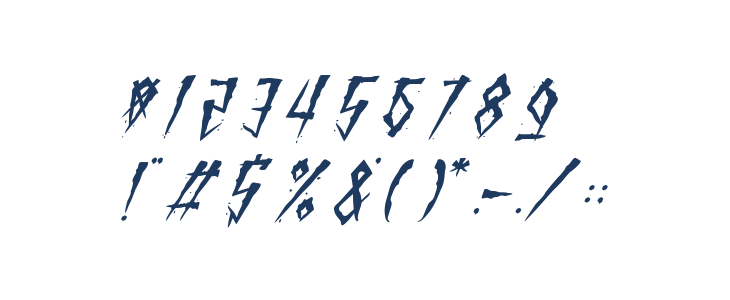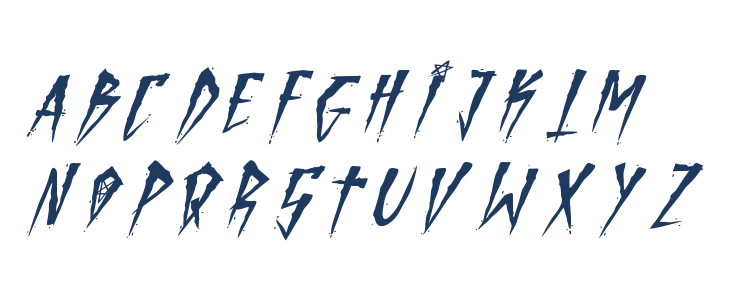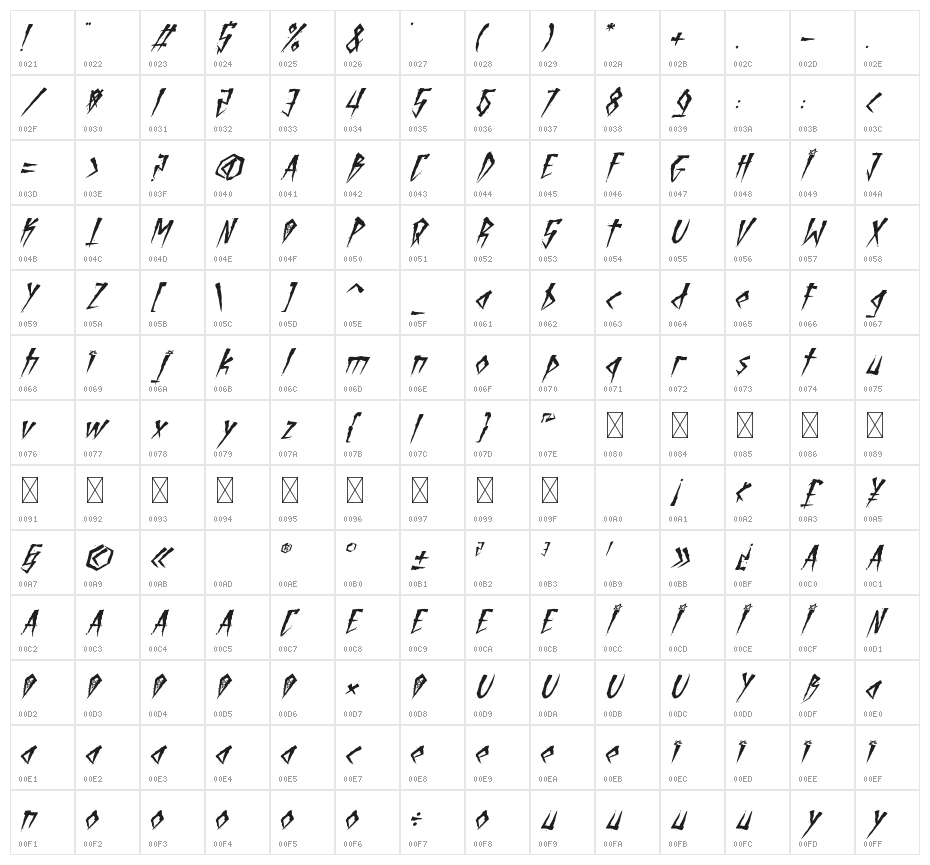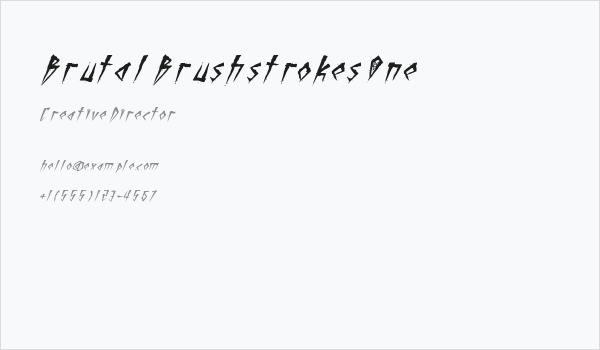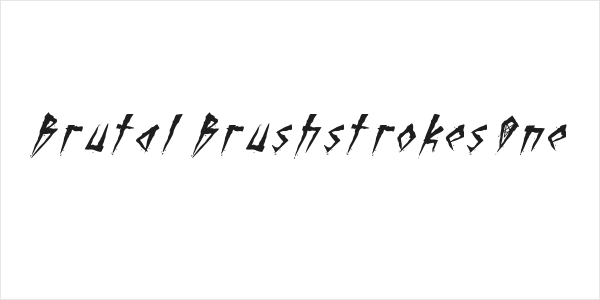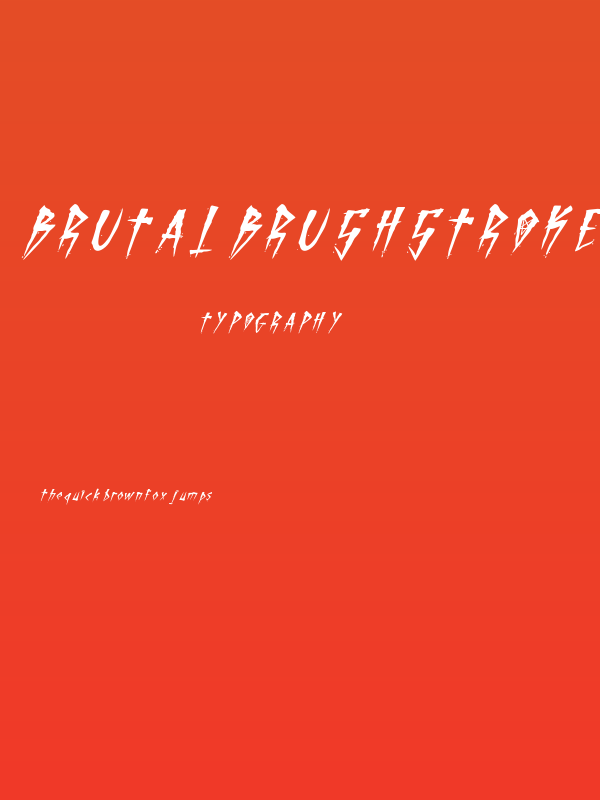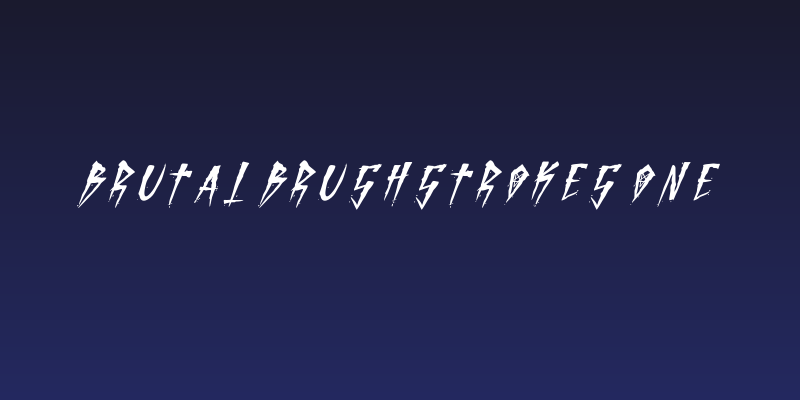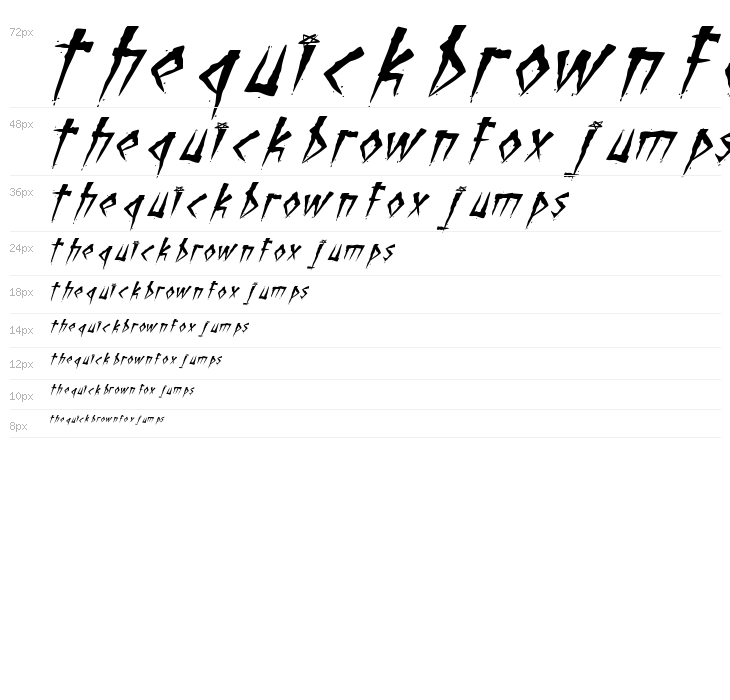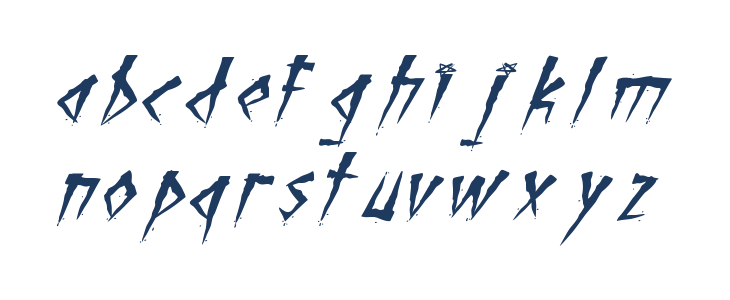
Brutal Brushstrokes One Font
Brutal Brushstrokes One Description
A highly expressive, jagged brushstroke font with sharp angles, irregular line thickness, and a distressed, hand-drawn appearance. The characters are dynamic and energetic, with uneven edges and splatter-like details, evoking a sense of rawness and intensity.
| Overall Style | Decorative, Grunge, Energetic |
| Use Case | Headlines, Posters, Logos, Event Promotions |
| Proposed Projects | Horror movie posters, music album covers, extreme sports branding, Halloween event flyers, rebellious fashion labels. |